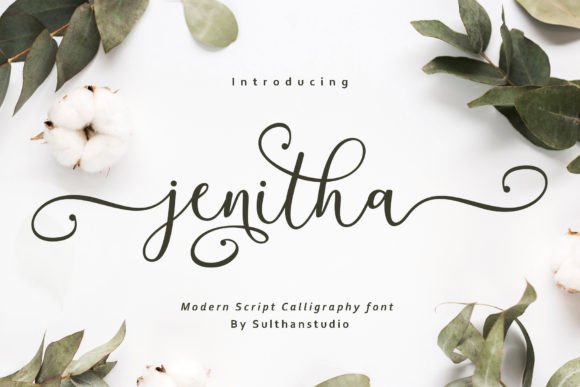
Behold, the enchanting script font, Jenitha, a calligraphic masterpiece that dances across your digital canvas with irresistible charm. Created by the skilled artisans at Sulthan Studio, Jenitha is not just a font; it's an art form, a symphony of curves and flourishes that will elevate your designs to new heights.
With its 500 glyphs, Jenitha offers a cornucopia of possibilities, allowing you to unleash your creativity and craft designs that resonate with elegance and sophistication. Whether you're working on branding projects, homeware designs, product packaging, name cards, or any other creative endeavor, Jenitha will add a touch of magic to your projects.
Imagine your brand name, swirling in Jenitha's graceful characters, leaving an unforgettable impression on your customers. Picture your homeware designs adorned with Jenitha's delicate strokes, creating a sense of timeless beauty. Envision your product packaging transformed into miniature works of art, captivating your audience with Jenitha's intricate details.
Jenitha is not just a font; it's a design chameleon, effortlessly adapting to your creative vision. It can be a stylish text overlay, adding a sprinkle of elegance to any background image. It can be the centerpiece of your invitation cards, imbuing them with a sense of occasion. It can be the perfect choice for name cards, conveying professionalism and creativity in equal measure.
Join the legion of designers, artists, and creative professionals who have succumbed to Jenitha's allure. Let your designs blossom with the beauty of this extraordinary script font. Experience the transformative power of Jenitha, and watch your projects soar to new heights of sophistication and elegance.